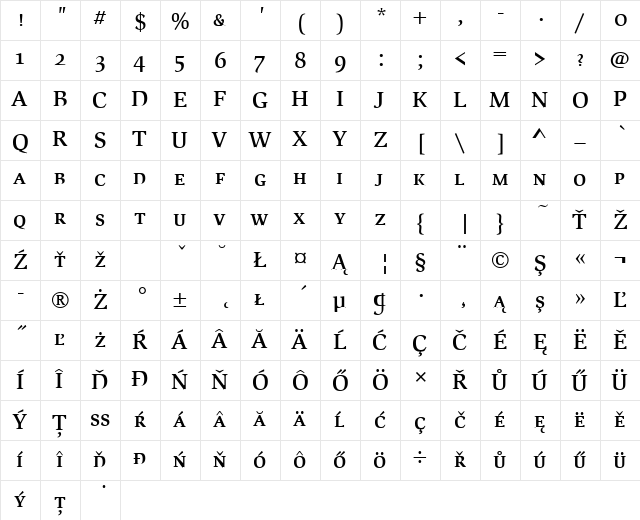
SlimbachSCItcTEEMed Regular Font Preview
SlimbachSCItcTEEMed Regular
Design Context for SlimbachSCItcTEEMed Typeface
SlimbachSCItcTEEMed offers clean, dependable letterforms without strong stylistic allegiance, making it a practical choice for designers who need flexibility.